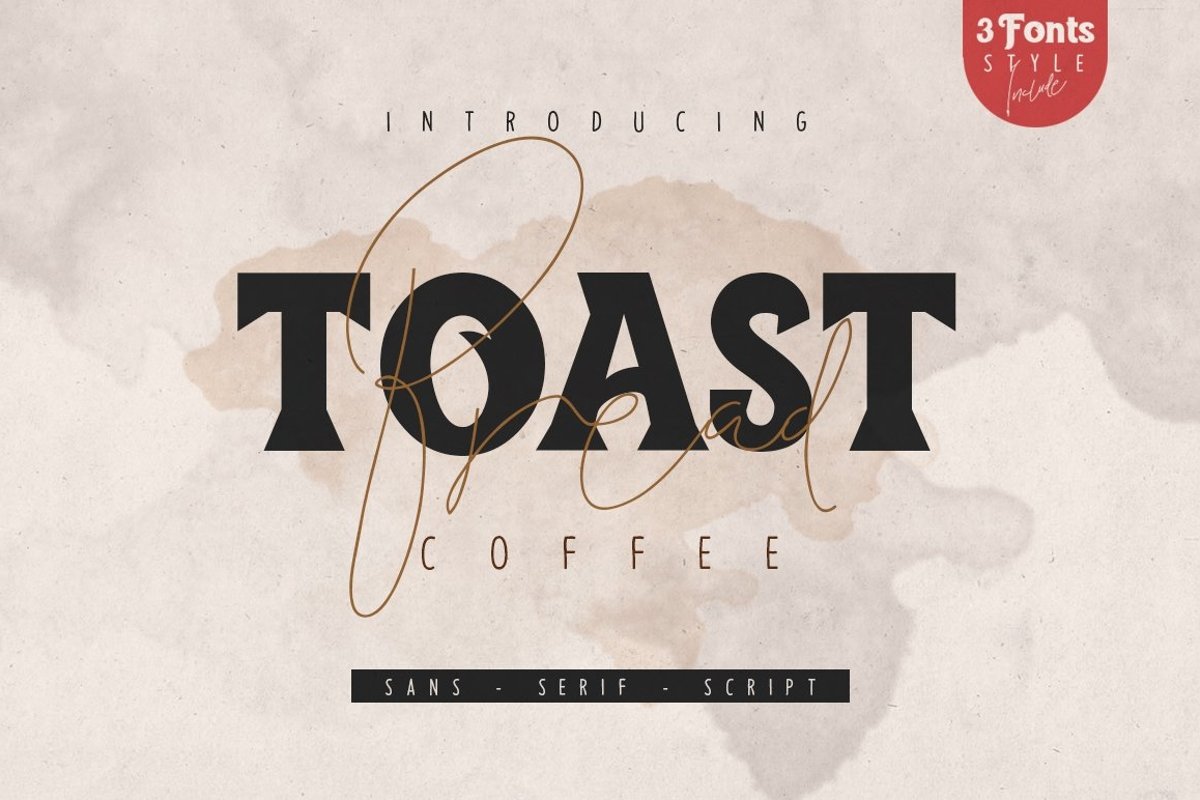
Toast Bread Coffee Typeface
3in1 FONTSa Toast Bread Coffee Typeface is complete package Font for your design or your job, have 3 differnt font style ( Sans, Serif, and Script ). Can make it easier to convey the message in your design. Use for awesome display, Logo, labeling, clothing, movie sceen, poster, movie title, gigs, album covers, logos, and much more.Include :Toast Bread Coffee Serif
• Numerals & Punctuations
Toast Bread Coffee Sans
• Uppercase (Allcaps)
• Numerals & Punctuations
Toast Bread Coffee Script
• Numerals & Punctuations